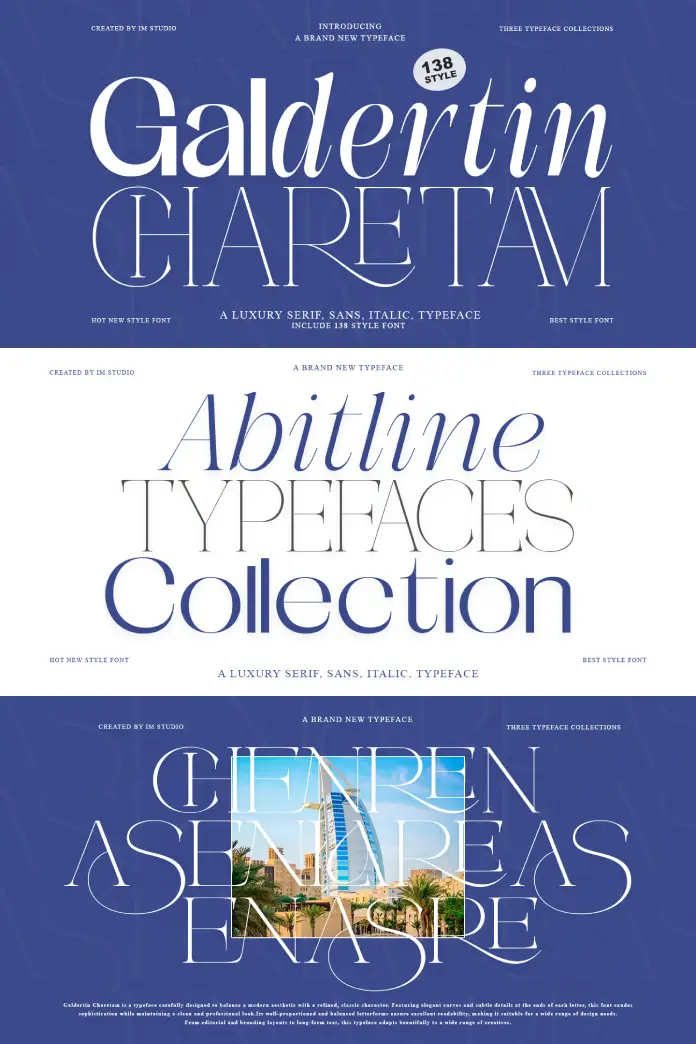
The Galdertin Charetam Typeface Shows What a Serif Font Family Can Actually Do
Typography shapes how people feel before they read a single word. The right typeface sets tone, signals intent, and communicates values without explanation. So when a font family arrives that genuinely changes the conversation, designers notice. Galdertin Charetam, designed by Ikhsan Maulana under the IM Studio foundry, does exactly that. It arrives with 141 font styles, a three-axis typographic identity spanning serif, italic, and sans serif, and a visual language rooted in high contrast and exacting craftsmanship. This is not a typeface chasing a trend. It is a system built to outlast one.
What makes Galdertin Charetam timely is the current editorial moment. Luxury branding is recalibrating toward restraint. Magazine design is returning to structured, high-contrast typography. Digital interfaces demand typefaces that carry emotional weight at display sizes. Galdertin Charetam lands precisely at that intersection. It speaks fluently in all three registers. That versatility alone earns it serious attention.
Galdertin Charetam Font Family by IM Studio.
What Exactly Is the Galdertin Charetam Font Family?
Galdertin Charetam is a serif display font family created by IM Studio. It includes 141 individual font styles organized across three core style axes: serif, italic, and sans serif. Each axis contains width variants — Extra Compact, Semi Compact — and weight variants ranging from thin hairline cuts to bold expressive stems. The result is a typographic ecosystem with genuine depth.
Functionally, it supports OpenType features including ligatures and stylistic alternates. Multilingual coverage spans over 90 languages. True italic styles were drawn from scratch rather than algorithmically slanted from the upright. That distinction matters enormously for editorial work, where the rhythm between roman and italic drives visual hierarchy and reading flow.
The Contrast Architecture of Galdertin Charetam
At the structural core of Galdertin Charetam lies what this article defines as a Polar Stroke Architecture — a coined framework describing how the typeface engineers extreme contrast between thick and thin strokes as a primary design decision rather than a stylistic afterthought. The vertical stems carry commanding weight. The hairline connectors and serifs are razor-precise. That opposition creates the visual tension that makes the typeface feel alive at large display sizes.
High-contrast serif typefaces carry inherent risk. Too aggressive and they become illegible at small sizes. Too restrained and the drama disappears. Galdertin Charetam threads that needle. At 48pt and above, the contrast sings. At body sizes, the lighter weights retain enough structure to remain readable. The design hierarchy is deliberate and well-calibrated.
The Three-Identity System: Serif, Italic, and Sans Serif Together
Most type families exist in one stylistic register. A serif family is a serif family. An italic is a companion, not an equal. Galdertin Charetam operates differently. It proposes what this article calls a Trimodal Typographic Identity — the theory that a single typeface family can sustain three fully developed stylistic personalities without losing coherence between them.
The serif variant anchors editorial and branding applications. Its proportions carry authority. The italic variant introduces fluidity and rhythm, functioning as more than a slanted roman. It breathes. The sans serif variant pulls the system into contemporary minimalism, offering a clean counterpoint to the serif’s complexity. Together, these three axes give designers a complete visual language inside one family.
That matters practically. Brand systems built on Galdertin Charetam can shift between formal and conversational registers without switching type families. Magazine layouts can build hierarchy from condensed sans to italic serif without tonal inconsistency. That cohesion reduces design friction significantly.
Variable Font Flexibility and What It Unlocks
Galdertin Charetam supports variable font technology. Weight and width axes respond to real-time adjustment, meaning designers can fine-tune tracking and weight without committing to a single static cut. For web typography, this enables responsive adjustments that preserve visual intent across screen sizes. For editorial and print work, it allows precise control over typographic color on the page.
Variable font capability also reduces file overhead in web projects. Rather than loading multiple static weights, a single variable font file handles the full range. Performance and design quality compound each other here rather than competing.
Where Galdertin Charetam Works Best
Certain typefaces feel designed for everything and work well at nothing. Galdertin Charetam has clear strengths and, to its credit, it does not pretend otherwise. Its proportions and contrast ratios make it an exceptional display typeface. Think headlines, logotypes, pull quotes, poster typography, packaging hierarchies, and book covers.
How does Galdertin Charetam compare to other high-contrast serif fonts?
Galdertin Charetam distinguishes itself through its 141-style depth, its inclusion of a true sans serif axis within the same family, and its true italic styles. Most competing display serif families offer far fewer styles and lack the internal sans serif capability that gives Galdertin Charetam its systemic versatility.